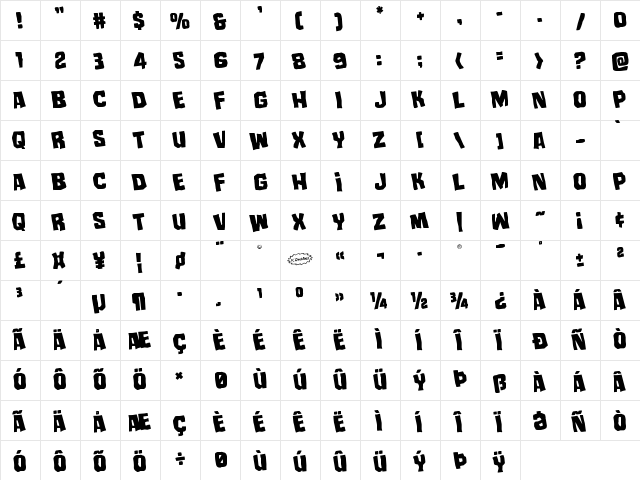
Mister Twisted Staggered Rotated Regular
Design Context for Mister Twisted Staggered Rotated Typeface
Mister Twisted Staggered Rotated is a composed and adaptable typeface that performs quietly and consistently across a wide range of design contexts.
Pro Tip: Use Mister Twisted Staggered Rotated in both headline and body roles to test its range before committing to a single application.